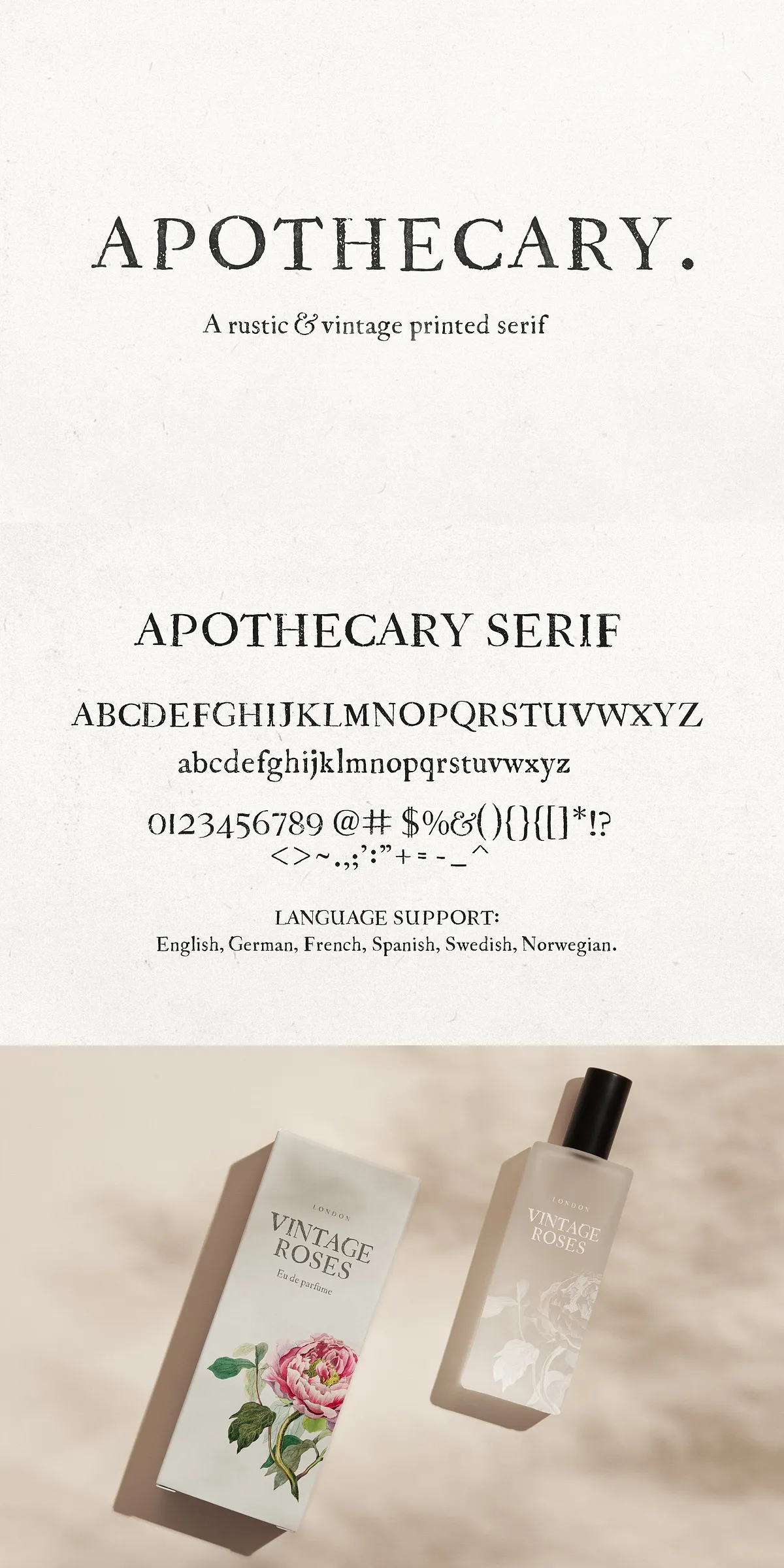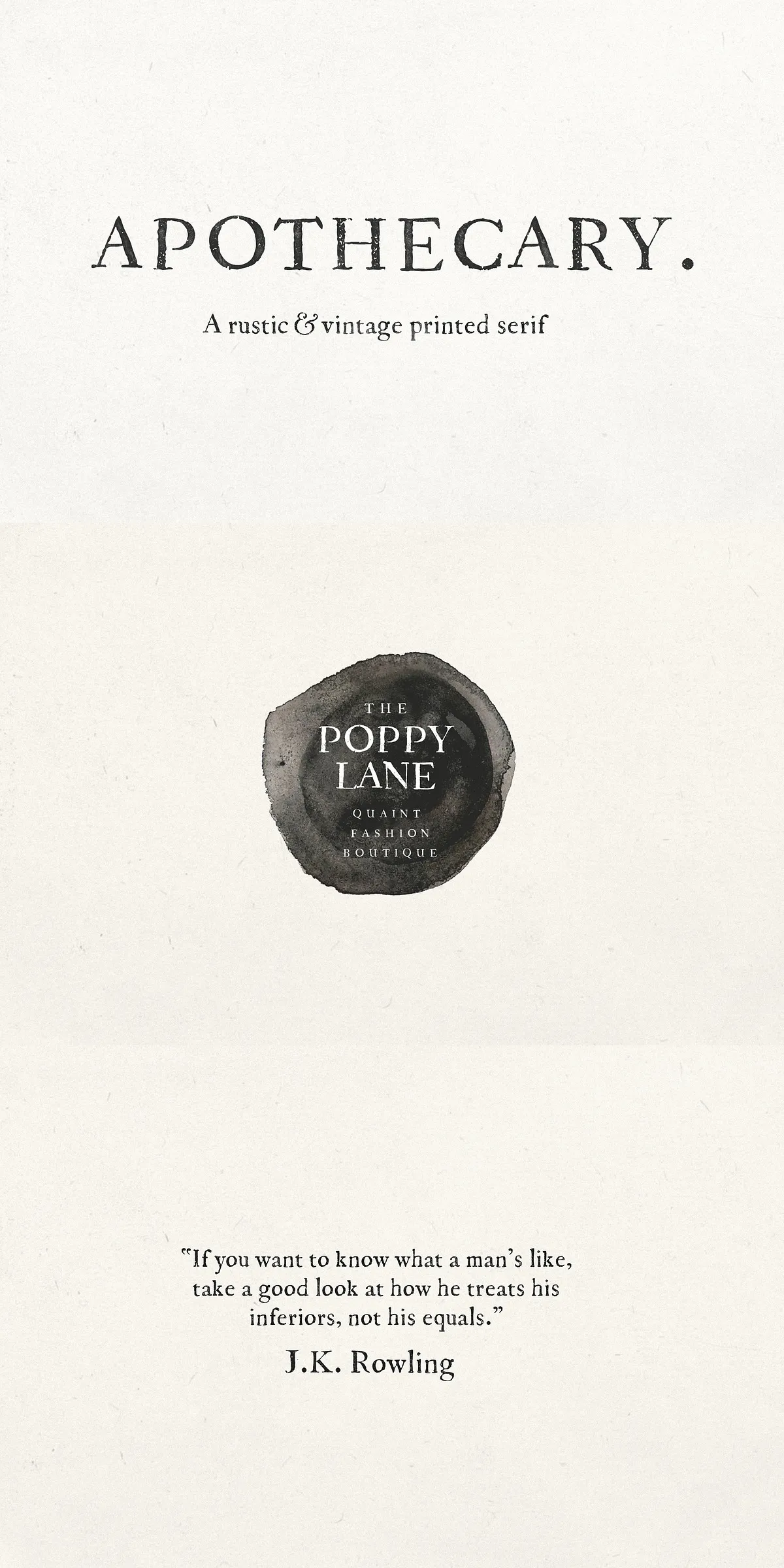
Step back into history with Apothecary Serif — a meticulously designed serif font inspired by the rich legacy of 18th-century print press typography. Each character carries the soul of handwritten manuscripts and aging parchment, featuring subtle imperfections like natural ink-bleed edges that mimic the real-world texture of ancient printing. This isn’t just a font — it’s a storytelling medium, bringing warmth, character, and nostalgia to your design.
Whether you’re crafting a luxury brand identity, designing an elegant wedding invitation, or adding soul to a packaging label, Apothecary Serif transforms your message into something deeply human and evocative. Its imperfect edges and organic flow are not flaws — they are features that celebrate the beauty of imperfection.
Why Apothecary Serif Stands Out in Modern Design
In an age of digital precision, Apothecary Serif dares to be different. It’s intentionally crafted with deliberate irregularities, making every use feel hand-signed, hand-printed, and historically grounded. These subtle variations add depth, movement, and emotion to your text — qualities that sterile, symmetrical fonts often lack.
Perfect Pairing with Watercolor & Handcrafted Aesthetics
Apothecary Serif was designed to dance harmoniously with watercolor illustrations, brush textures, and hand-drawn elements. Its slightly uneven strokes and soft edge bleed interact beautifully with washes of color, creating a cohesive, organic visual language. The font doesn’t compete with the artwork — it complements it, enhancing the overall mood of vintage charm and artisanal elegance.
But don’t let its nostalgic roots limit you. Apothecary Serif also shines in minimalist designs where its raw beauty makes a bold statement on its own — clean, dramatic, and unforgettable.
Master the Art of Typography with Adjustable Letter-spacing
One of the most powerful tools in your creative arsenal? Letter-spacing. With Apothecary Serif, you can experiment freely to achieve vastly different moods:
- Loose spacing creates a breathable, airy feel — perfect for quotes, book titles, or editorial design.
- Tight spacing gives your text a dense, historic weight — ideal for vintage packaging or logo accents.
- Variable spacing allows you to create rhythm and emphasis, guiding the eye through your message like a handwritten letter.
Use this flexibility to bring personality to your content — every tweak tells a different story.
Creative Applications That Elevate Any Project
Apothecary Serif is more than a typeface; it’s a versatile design partner across multiple industries and formats:
Perfect For:
- Branding — Build heritage-inspired identities for boutiques, artisanal products, or wellness brands.
- Wedding Invitations — Add a sense of tradition and intimacy to save-the-dates and ceremony programs.
- Packaging Design — Make your product labels feel handcrafted, premium, and unforgettable.
- Quotes & Motivational Art — Use it to create visual poems with timeless appeal.
- Labels & Stickers — Ideal for herbal products, apothecary goods, or craft goods with a vintage aesthetic.
- Book Covers & Typography Projects — Give your publications a tactile, literary feel.
Global Accessibility — Full Multilingual Support Built In
Apothecary Serif isn’t just about style — it’s built for real-world use. It includes full support for:
- English
- French
- German
- Spanish
- Swedish
- Norwegian
You can confidently use the font for international campaigns, multilingual websites, or global branding without worrying about missing characters, missing accents, or broken text.
Seamless Integration Across Design Platforms
Whether you’re using Adobe Illustrator, Photoshop, InDesign, Figma, Affinity Designer, or WordPress, Apothecary Serif works flawlessly. It supports OpenType features, including ligatures, stylistic alternates, and contextual forms, giving you full creative control.
With scalable vector outlines and precise kerning, Apothecary Serif renders beautifully at any size — from a postage stamp to a grand exhibition banner.
Create a Legacy with Every Letter
Bridging centuries of typographic tradition with today’s creative demands, Apothecary Serif empowers you to design not just with tools, but with intention. It’s for creators who believe that the past should inspire the future — that every font choice is a message.
Who Should Use Apothecary Serif?
- Graphic designers seeking authentic, handcrafted aesthetics.
- Wedding planners and calligraphers creating personalized invites.
- Artisans, herbalists, and small-batch product brands building identity.
- Print and web designers wanting to add emotional depth to their work.
- Content creators building a vintage or nostalgic brand persona.